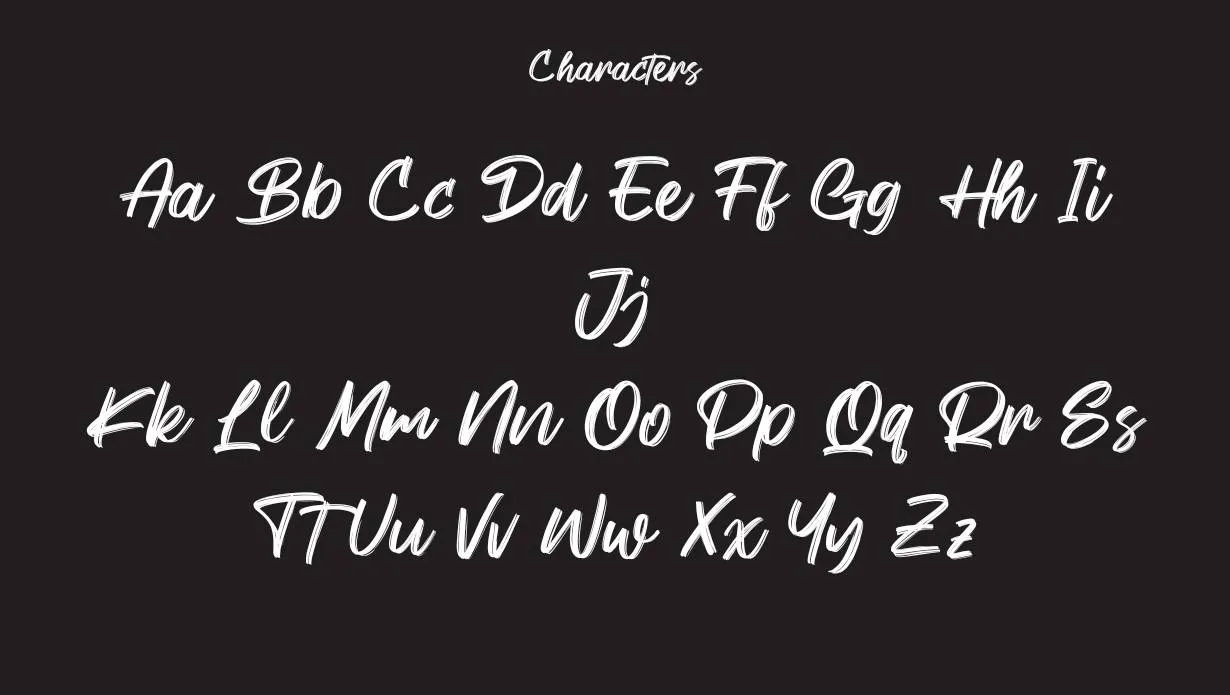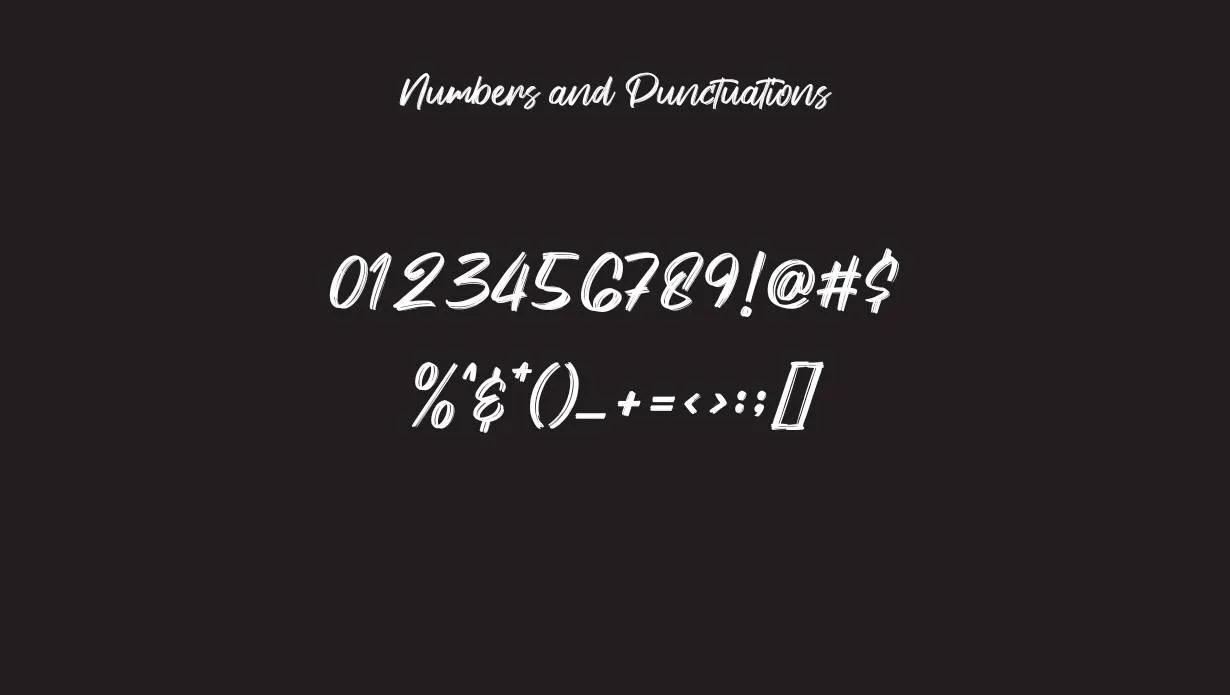
Keypass Font belongs to the brush font family. The characters of this typeface have a bold and rough appearance with attractive curves and fresh urban edges.
- Keypass Regular
| Name | Keypass Font |
| Designer | Garisman Studio |
| Style | Brush |